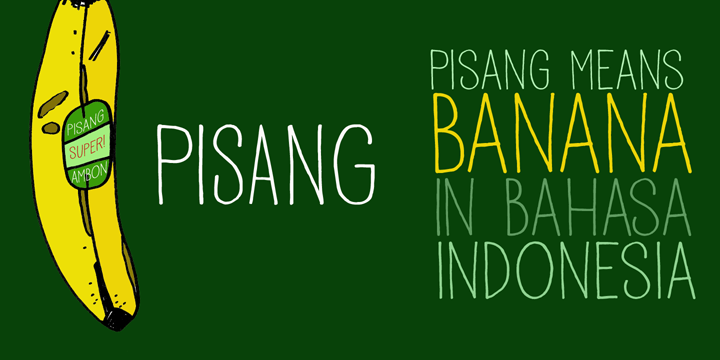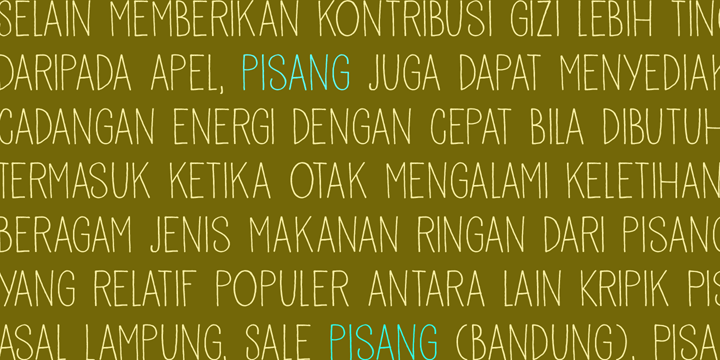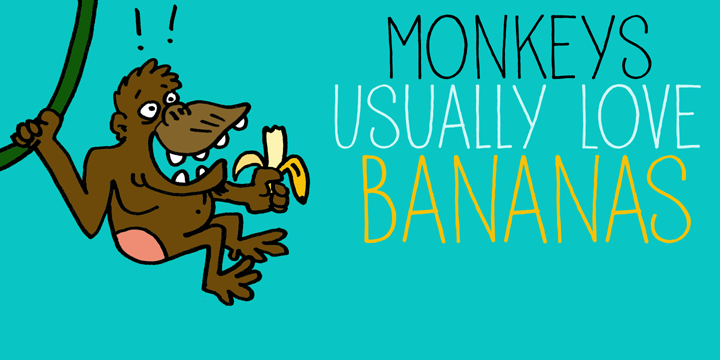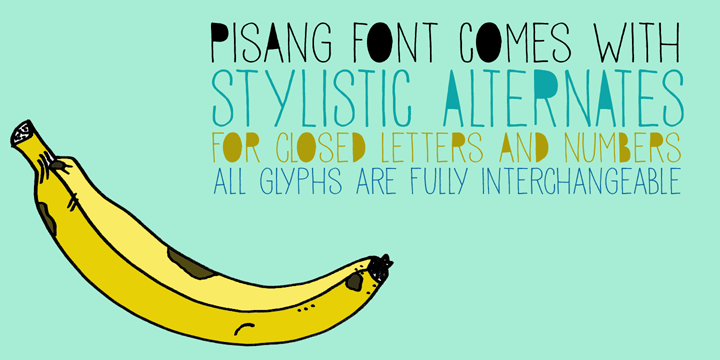
Pisang is a hand drawn and hand display font family. This typeface has two styles and was published by Hanoded.
Pisang means banana in Malay and Bahasa Indonesia. It is a tall, narrow and very clear font, ideal for books, recipes, food labeling and posters. It comes with a full range of diacritics and some interesting alternates for the closed glyphs as well.